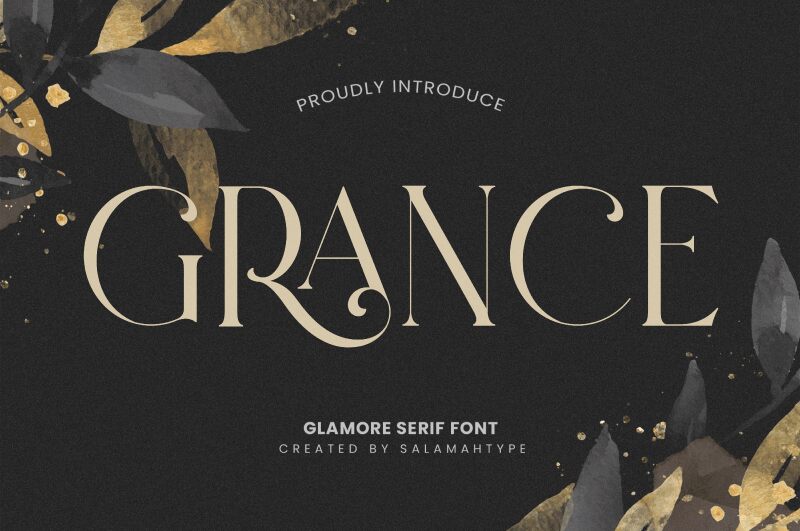
Grance, designed by the visionary minds at Salamahtype.com, is not just a font—it's the embodiment of elegance and sophistication. This semi-light serif typeface is crafted for those who seek a touch of luxury and finesse in their creative endeavors. With its clean lines and graceful contours, Grance elevates any project—be it modern logos that demand attention, social media quotes that need to resonate, wedding invitations imbued with romance, or stationery that exudes class.
Suitable for a wide range of applications, Grance promises versatility without compromising on style. Its unique characteristics make it an indispensable asset for designers aiming to leave an impression of refinement. Step into a world where every character tells a story of opulence; let Grance be your guide in transforming the ordinary into extraordinary.